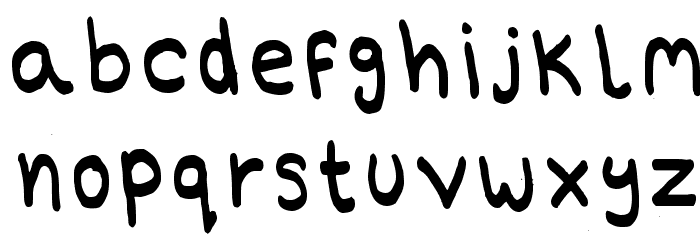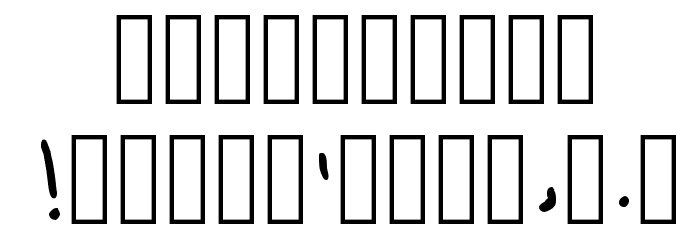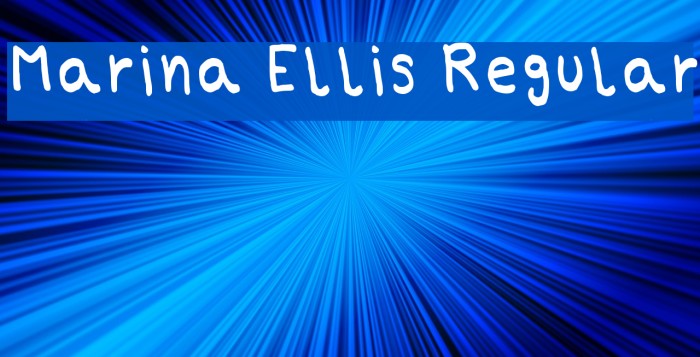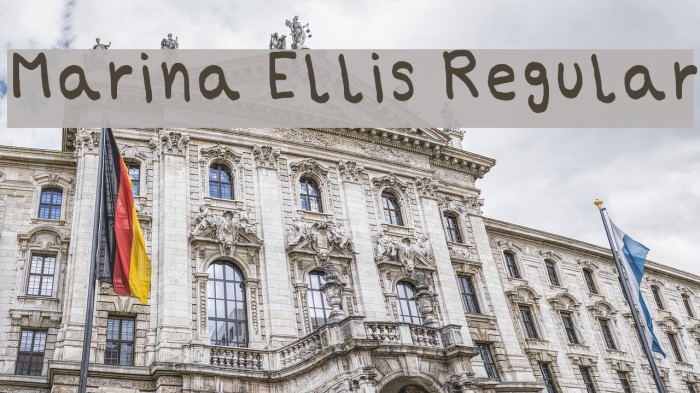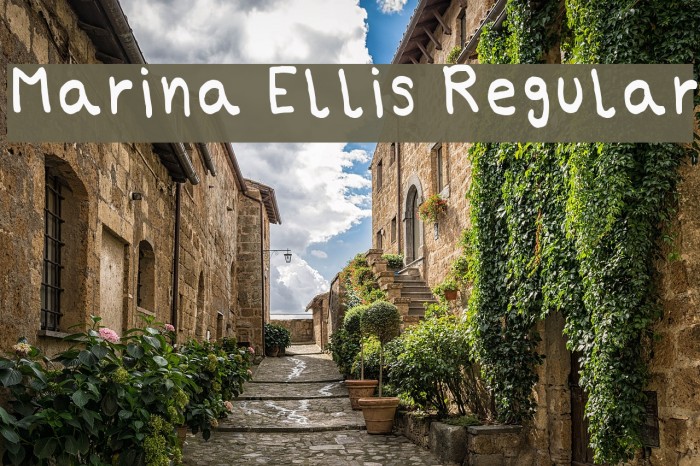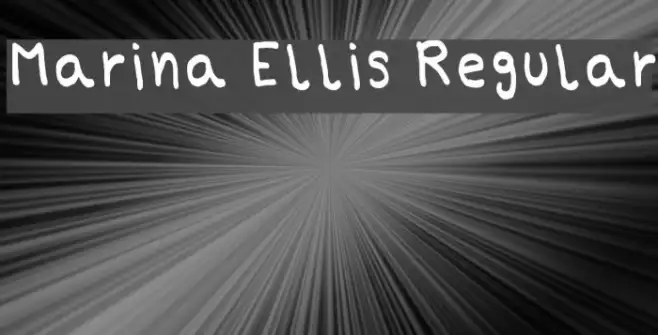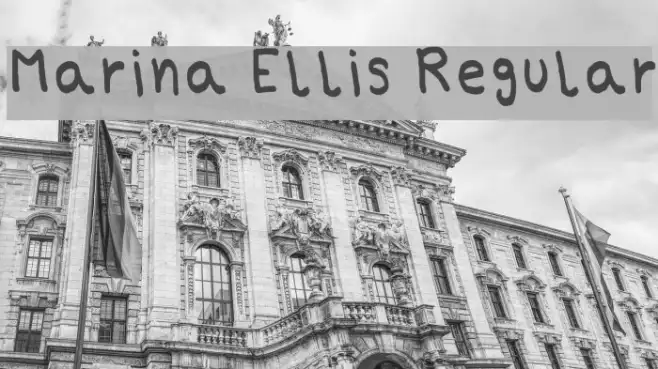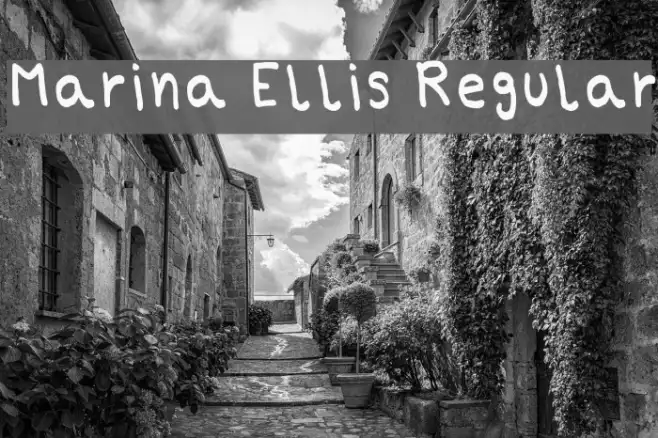
Marina Ellis Regular Font
This font exhibits a playful and informal style, characterized by its hand-drawn appearance. The letters are slightly irregular, giving it a casual and approachable feel. The strokes are consistent in thickness, contributing to a uniform look despite the whimsical nature. The uppercase and lowercase letters maintain a coherent style, with rounded edges and a slight tilt that adds to the font's charm. The numerals and special characters follow the same design principles, ensuring a cohesive overall appearance. This font is ideal for projects that require a friendly and relaxed tone.
A playful, hand-drawn font with a casual and informal style.
- Proposed Projects: Perfect for children's books, casual invitations, greeting cards, and playful branding.
- Category: Handwritten
- Overall Style: Casual
- Use Case: Headlines, Informal text, Creative projects